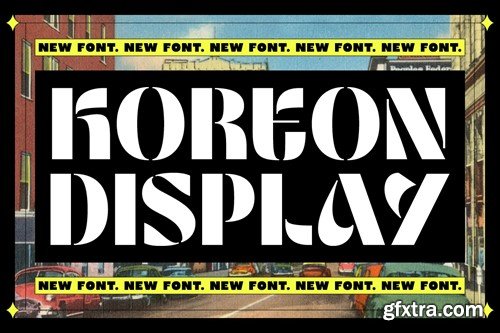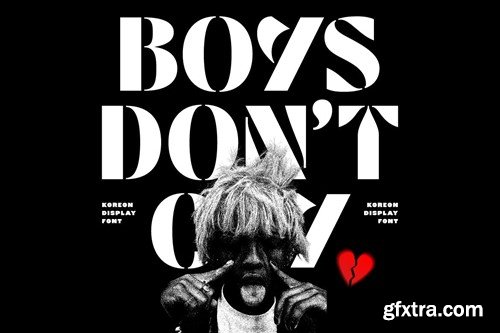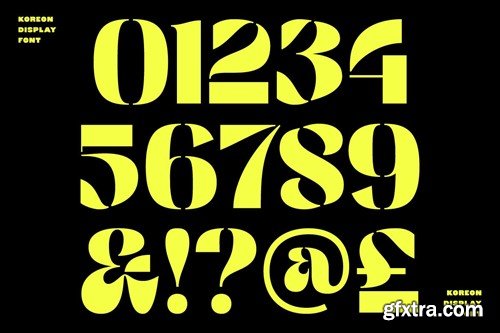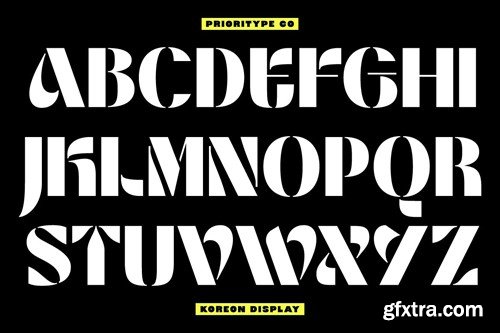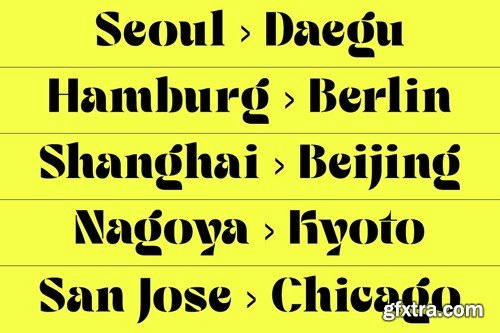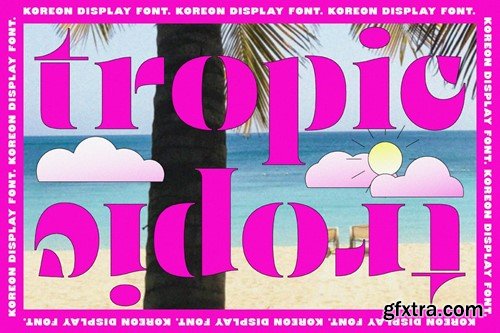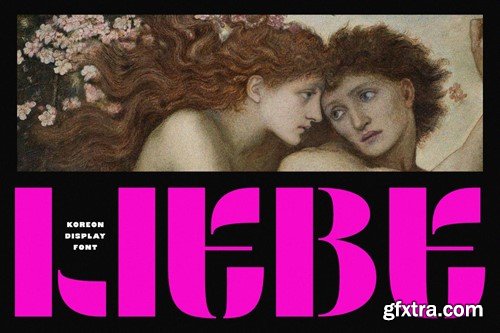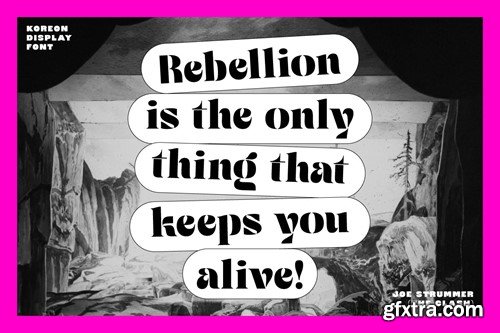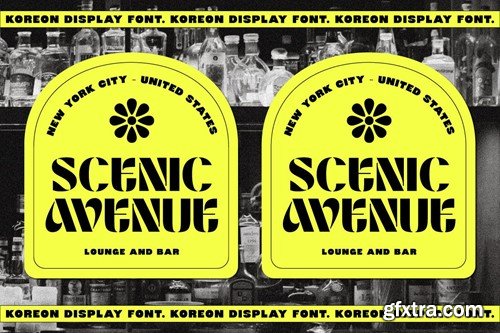
Koreon Display - Stencil Font Koreon Display is a striking stencil display font characterized by its bold and captivating letterforms. Each character is meticulously crafted to stand out, making it memorable and distinctive. This font is perfectly suited for branding projects, logos, posters, and other design applications where you want to make a bold statement. With its unique style and versatility, Koreon Display will surely elevate your designs and leave a lasting impression. Features: Uppercase, Lowercase, Numeral, Punctuation & Multilingual. Obtained file format: Otf, Ttf & Woff. Multilingual contained: Afrikaans, Albanian, Asu, Basque, Bemba, Bena, Breton, Catalan, Chiga, Cornish, Danish, Dutch, English, Estonian, Filipino, Finnish, French, Friulian, Galician, German, Gusii, Indonesian, Irish, Italian, Kabuverdianu, Kalenjin, Kinyarwanda, Luo, Luxembourgish, Luyia, Machame, Makhuwa-Meetto, Makonde, Malagasy, Manx, Morisyen, North Ndebele, Norwegian Bokmål, Norwegian Nynorsk, Nyankole, Oromo, Portuguese, Quechua, Romansh, Rombo, Rundi, Rwa, Samburu, Sango, Sangu, Scottish Gaelic, Sena, Shambala, Shona, Soga, Somali, Spanish, Swahili, Swedish, Swiss German, Taita, Teso, Uzbek (Latin), Volapük, Vunjo, Zulu. For any questions please contact me :) Thanks!